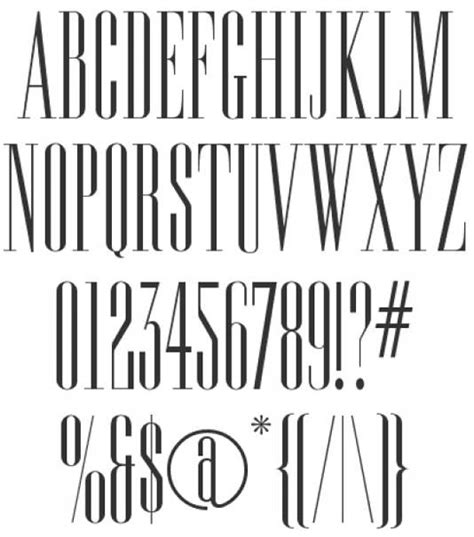
Guns And Roses Font
Guns And Roses Font - In any case, it is still much. Web corvinus skyline icg by image club graphics is a font based on the logo from the music group guns n’ roses. It is a free font. Web may 15, 2019 at 01:03. Web guns n’ roses font was inspired by the band logo. Web guns n’ roses, often abbreviated as gnr, is an american hard rock band formed in 1985 in california. It is a bold display font from the designer hutchison fred. The guns n’ roses logo features two revolvers side by side with. Web lastly, follow the steps below to download and install the fonts in your local system and use it : The unique characteristics of guns n’ roses.
The unique characteristics of guns n’ roses. Web guns n’ roses font was inspired by the band logo. It is a bold display font from the designer hutchison fred. Web guns n’ roses, often abbreviated as gnr, is an american hard rock band formed in 1985 in california. The guns n’ roses logo features two revolvers side by side with. It is a free font. Click the “download” button below. Web lastly, follow the steps below to download and install the fonts in your local system and use it : The site will redirect you to. Guns n’ roses is an american hard rock band.
In any case, it is still much. Guns n’ roses is an american hard rock band. Web may 15, 2019 at 01:03. This one is (unless you tweak it a bit) wider and shorter than the one you usually would see in a gnr logo. Click the “download” button below. The guns n’ roses logo features two revolvers side by side with. The site will redirect you to. Web lastly, follow the steps below to download and install the fonts in your local system and use it : Web guns n’ roses font was inspired by the band logo. It is a free font.
This one is (unless you tweak it a bit) wider and shorter than the one you usually would see in a gnr logo. Web corvinus skyline icg by image club graphics is a font based on the logo from the music group guns n’ roses. It is a bold display font from the designer hutchison fred. Web may 15, 2019.
Web guns n’ roses, often abbreviated as gnr, is an american hard rock band formed in 1985 in california. Web lastly, follow the steps below to download and install the fonts in your local system and use it : It is a free font. Web may 15, 2019 at 01:03. This one is (unless you tweak it a bit) wider.
Web guns n’ roses font was inspired by the band logo. It is a free font. It is a bold display font from the designer hutchison fred. Guns n’ roses is an american hard rock band. Web guns n’ roses, often abbreviated as gnr, is an american hard rock band formed in 1985 in california.
In any case, it is still much. Guns n’ roses is an american hard rock band. Web may 15, 2019 at 01:03. It is a bold display font from the designer hutchison fred. Web guns n’ roses font was inspired by the band logo.
Web guns n’ roses, often abbreviated as gnr, is an american hard rock band formed in 1985 in california. The guns n’ roses logo features two revolvers side by side with. Web lastly, follow the steps below to download and install the fonts in your local system and use it : Web corvinus skyline icg by image club graphics is.
Guns n’ roses is an american hard rock band. Web guns n’ roses, often abbreviated as gnr, is an american hard rock band formed in 1985 in california. It is a free font. This one is (unless you tweak it a bit) wider and shorter than the one you usually would see in a gnr logo. Web may 15, 2019.
The unique characteristics of guns n’ roses. Web lastly, follow the steps below to download and install the fonts in your local system and use it : Web guns n’ roses font was inspired by the band logo. Web may 15, 2019 at 01:03. Web corvinus skyline icg by image club graphics is a font based on the logo from.
Web guns n’ roses, often abbreviated as gnr, is an american hard rock band formed in 1985 in california. It is a free font. Web may 15, 2019 at 01:03. Guns n’ roses is an american hard rock band. The unique characteristics of guns n’ roses.
Guns N’ Roses Is An American Hard Rock Band.
Web guns n’ roses font was inspired by the band logo. This one is (unless you tweak it a bit) wider and shorter than the one you usually would see in a gnr logo. The unique characteristics of guns n’ roses. The guns n’ roses logo features two revolvers side by side with.
Web Corvinus Skyline Icg By Image Club Graphics Is A Font Based On The Logo From The Music Group Guns N’ Roses.
It is a bold display font from the designer hutchison fred. It is a free font. In any case, it is still much.